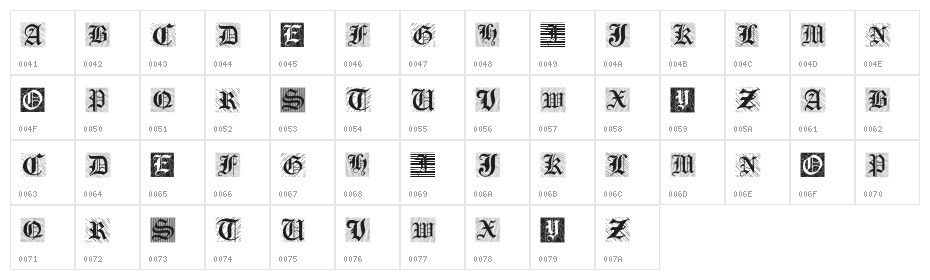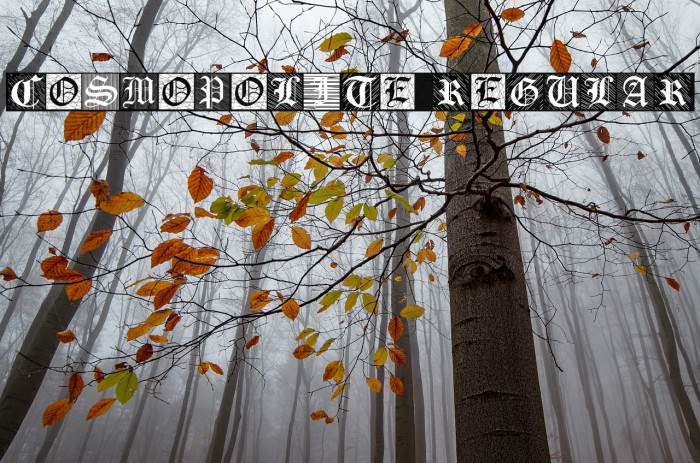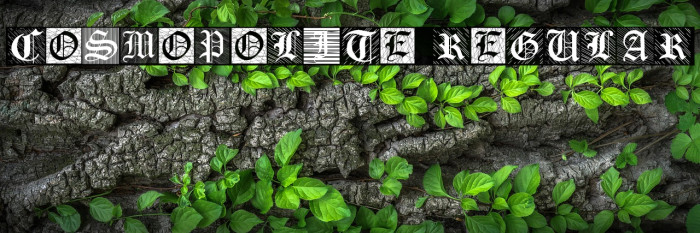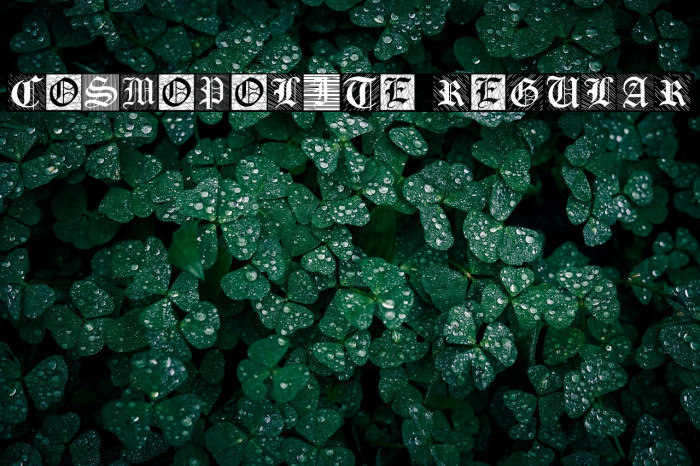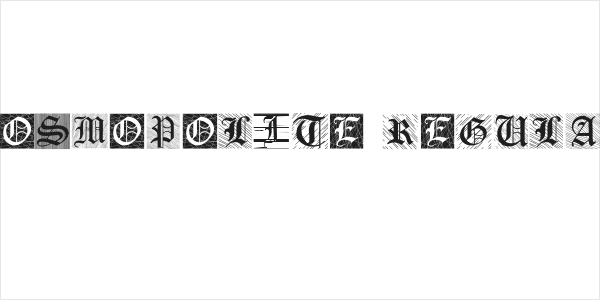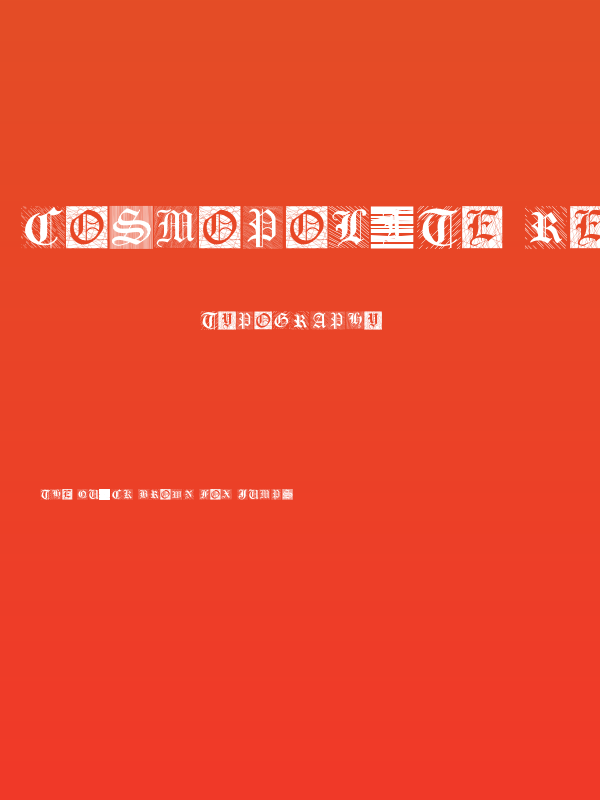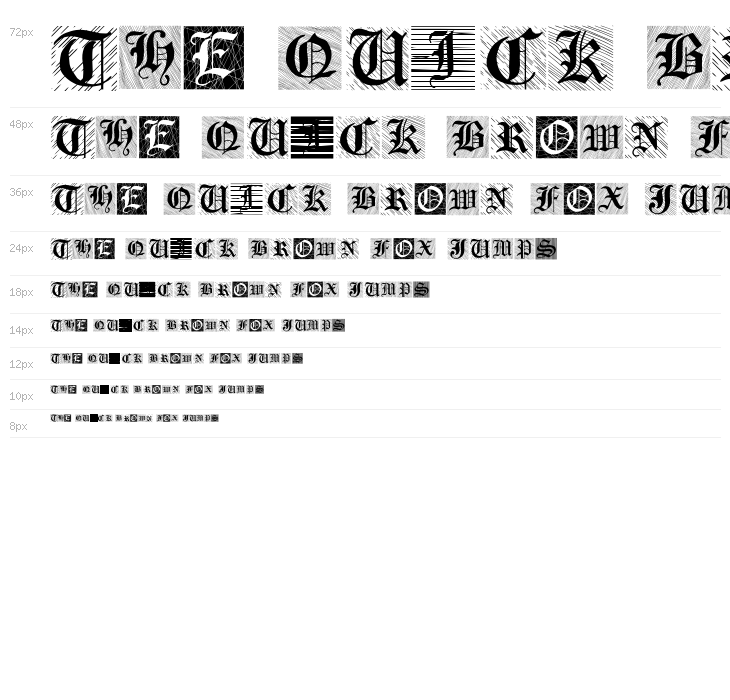
Cosmopolite Regular Font
Cosmopolite Regular Description
This font features a distinct and ornate style, reminiscent of traditional blackletter typefaces. Each character is intricately designed with elaborate flourishes and sharp angles, creating a sense of historical elegance. The uppercase letters are particularly striking, with bold strokes and decorative elements that give them a commanding presence. The lowercase letters maintain the same level of detail, ensuring consistency throughout the typeface. The numbers and special characters are equally ornate, making this font suitable for projects that require a touch of sophistication and classic charm.
| Overall Style | Vintage |
| Use Case | Headlines, Logos, Decorative text |
| Proposed Projects | Ideal for vintage-themed designs, wedding invitations, certificates, and branding that requires a classic touch. |